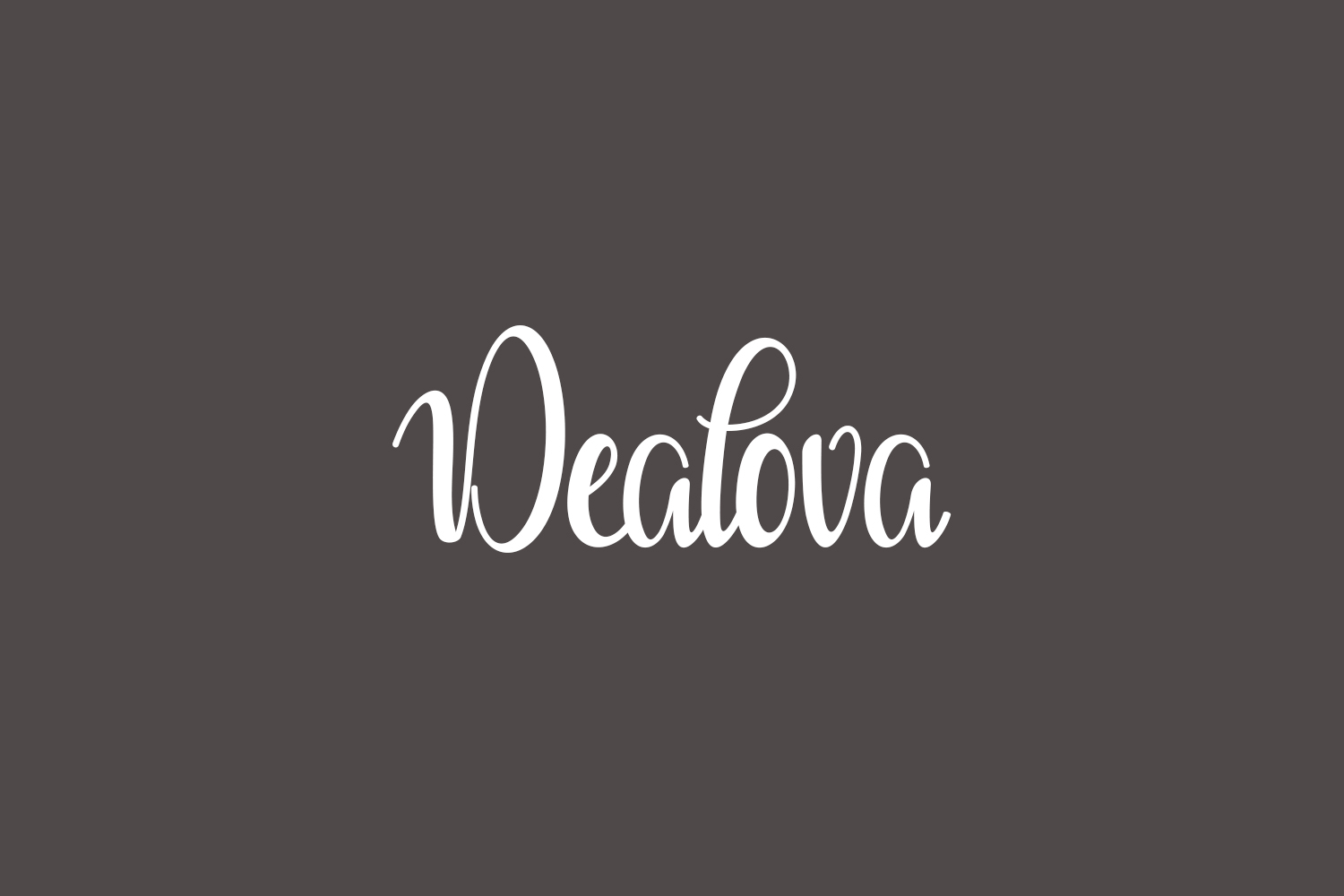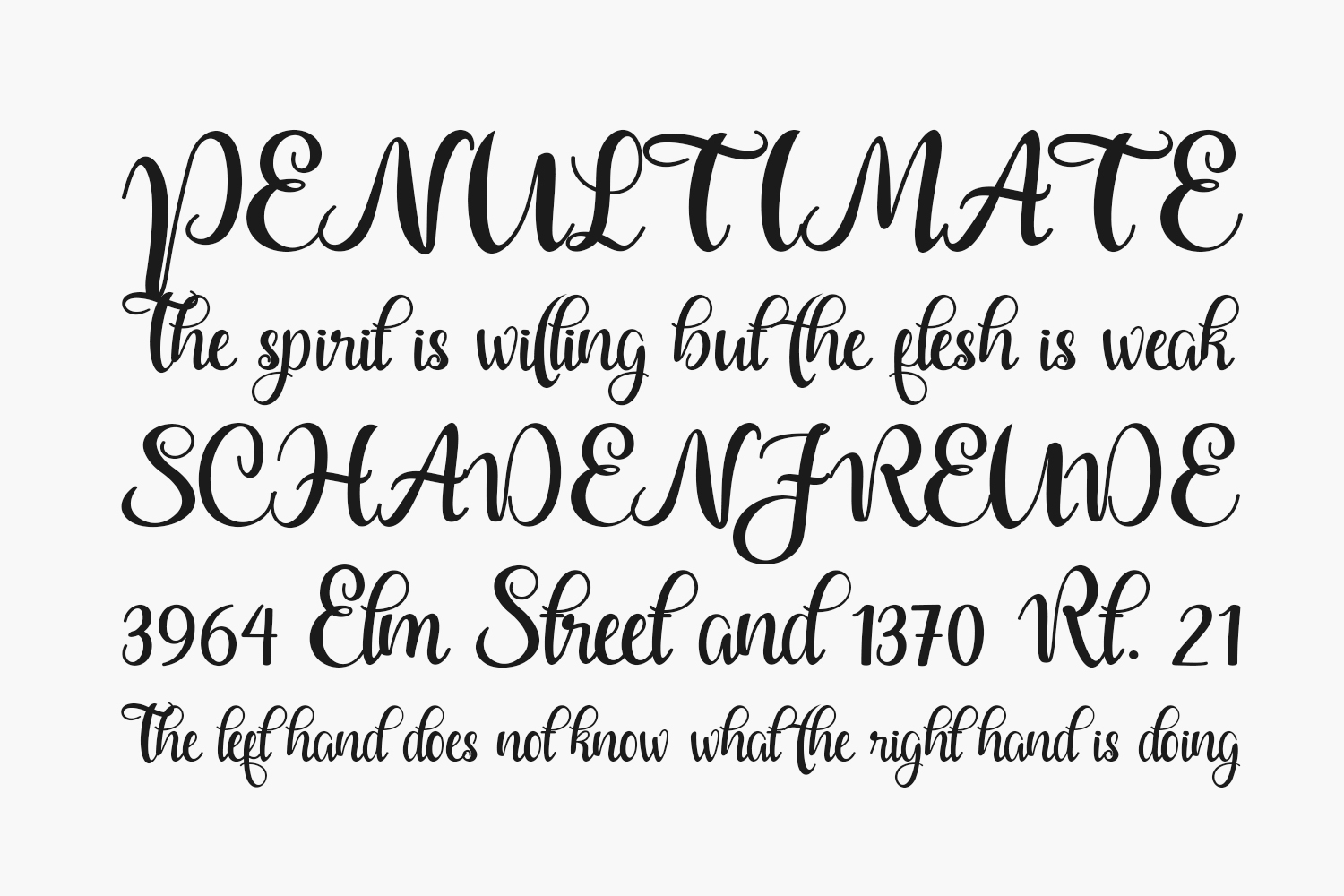
Dealova Free Font is a fresh & modern script font. It has a handmade calligraphy style and includes amazing decorative characters. Dealova Free Font was designed by Zulfikar Ali and is free for personal use only. Please purchase the full version for commercial use.